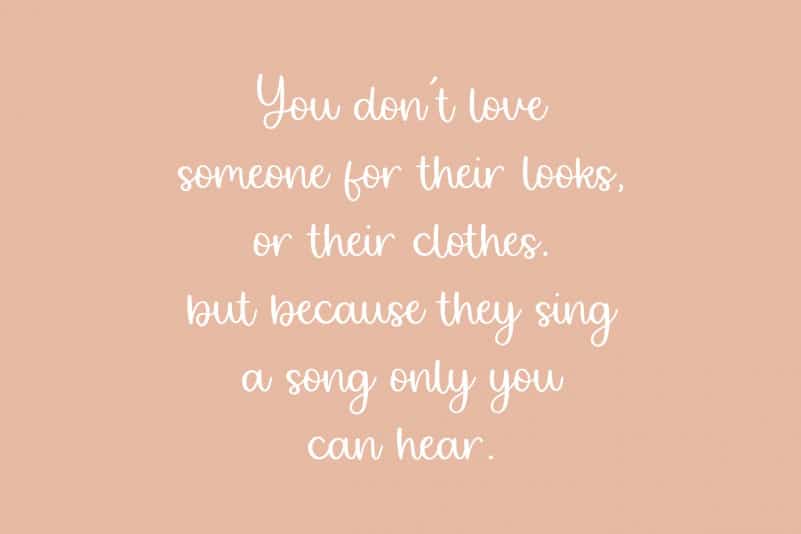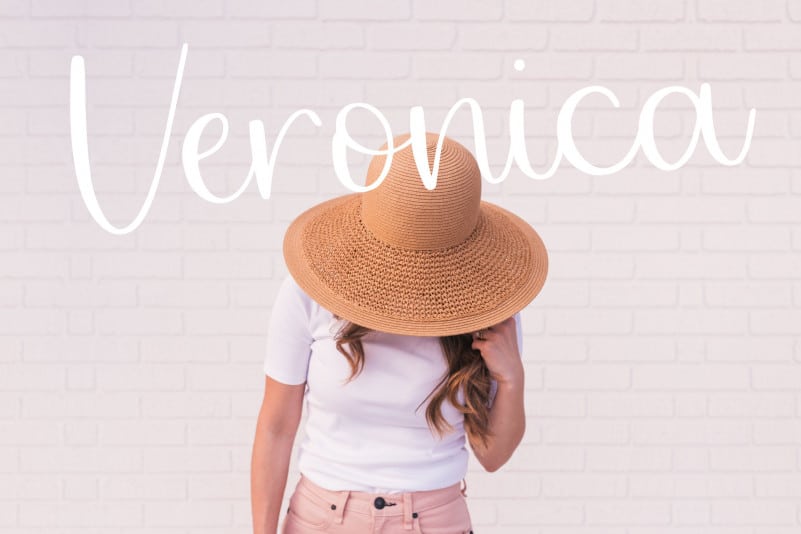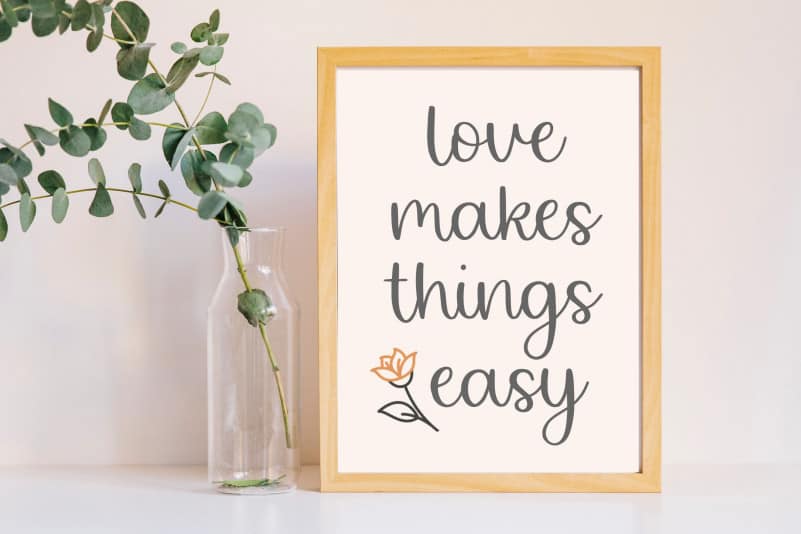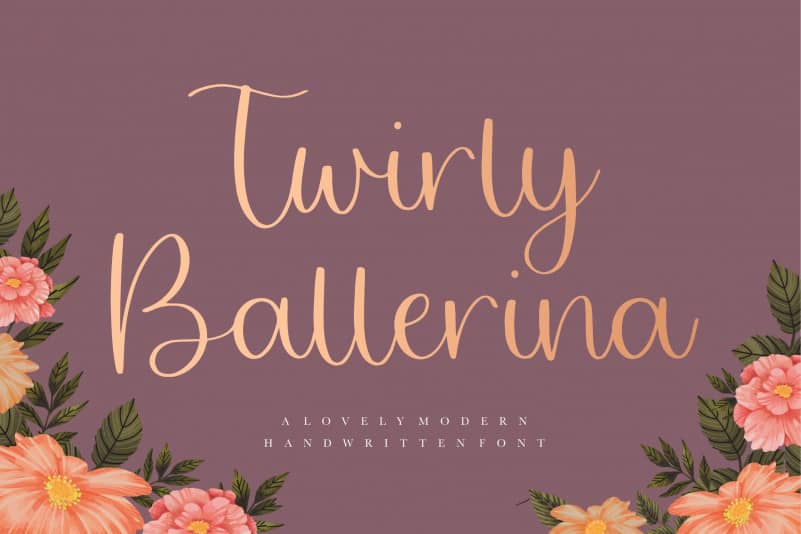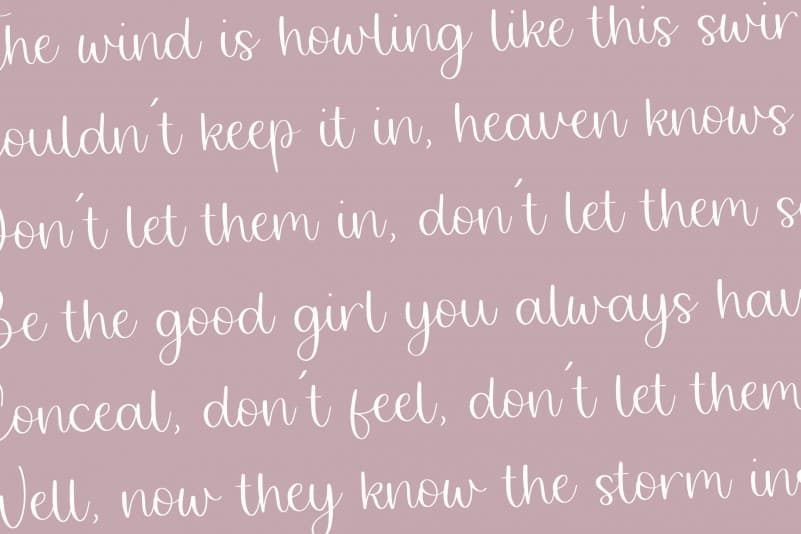
Twirly Ballerina Handwritten Font
Proudly Present, Twirly Ballerina Handwritten Font.
Twirly Ballerina is a Lovely Modern Handwritten Font.
Twirly Ballerina is perfect for product packaging, branding project, megazine, social media, wedding, or just used to express words above the background.